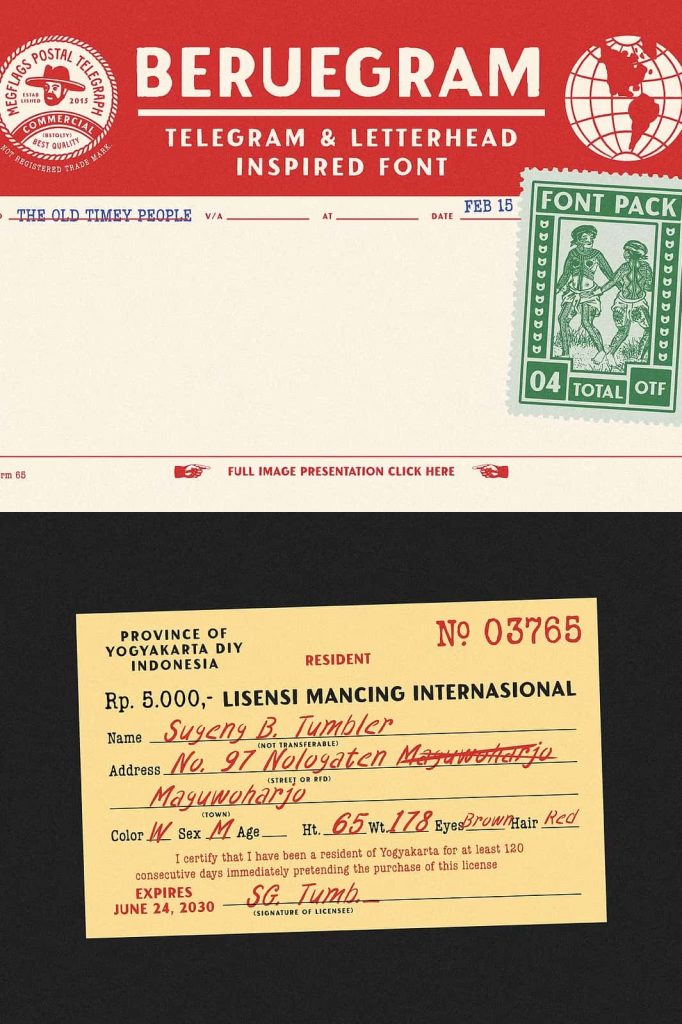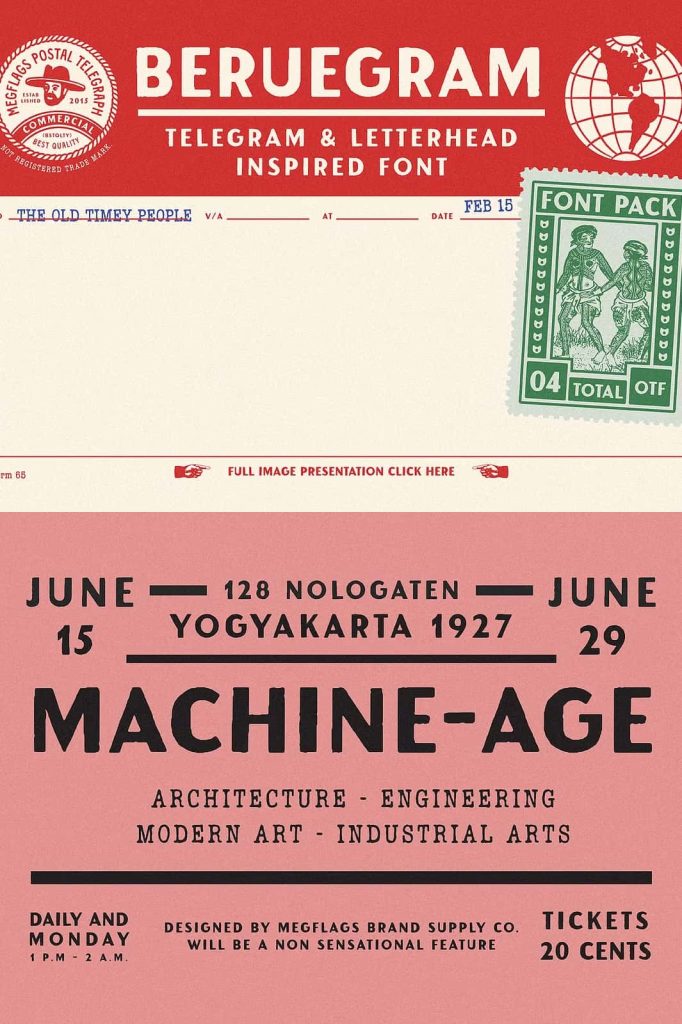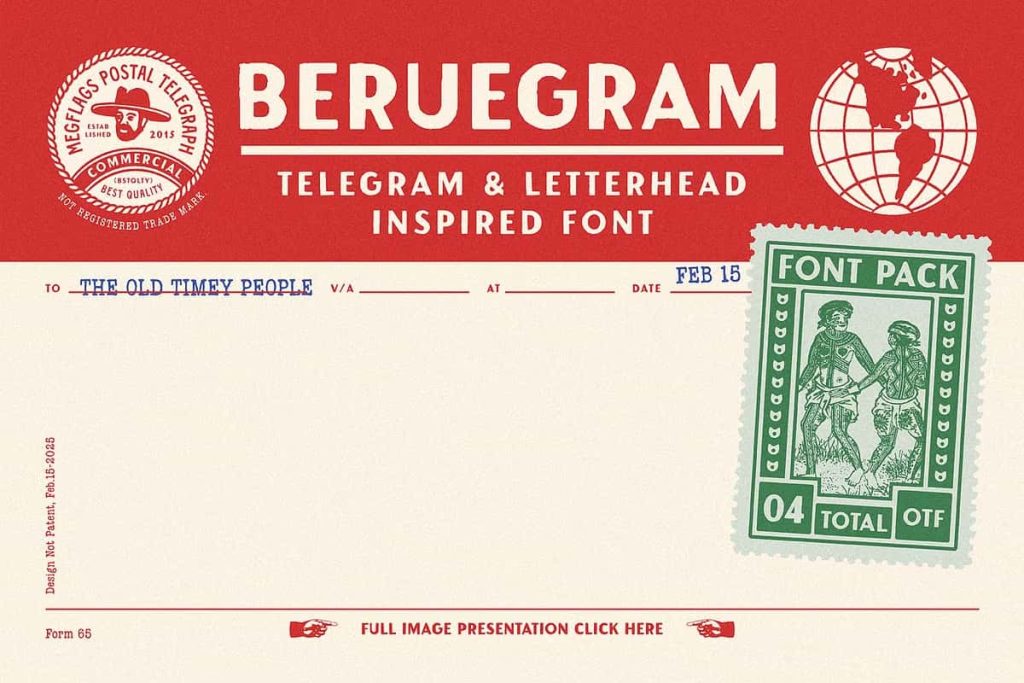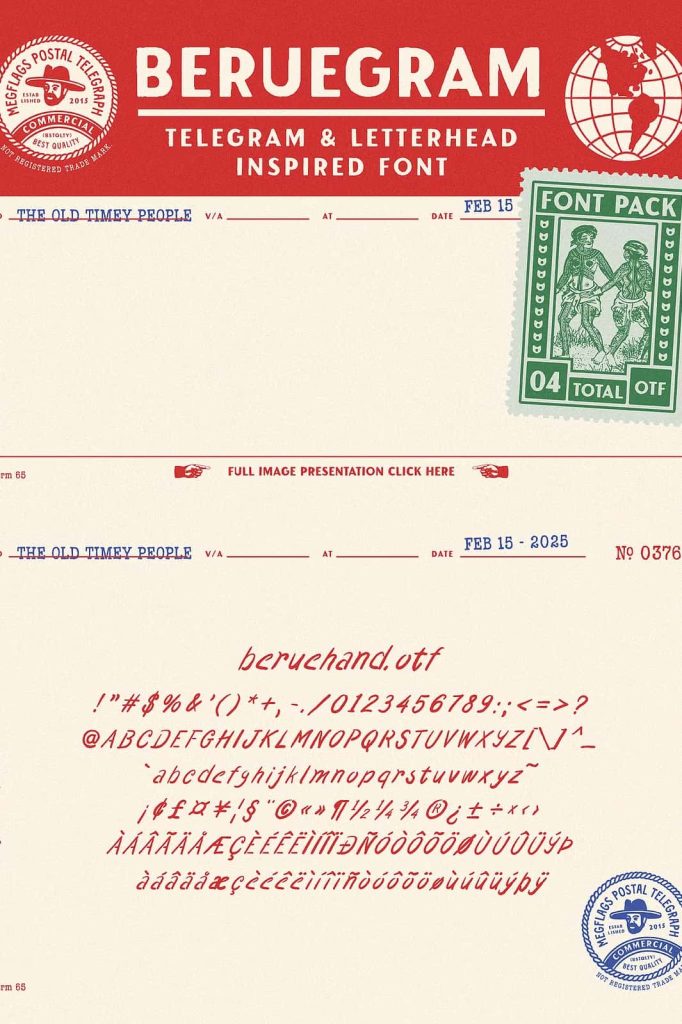
Beruegram Font Pack
Beruegram Font Pack is a vintage-inspired typeface collection that captures the timeless elegance of classic telegrams, historic letterheads, and traditional printed correspondence. Drawing inspiration from the golden era of communication, Beruegram combines nostalgic charm with modern design versatility, allowing creative professionals to produce typography that feels authentic, refined, and full of character.
From the distinctive appearance of old postal documents to the sophisticated styling of official stationery, every element of Beruegram reflects the craftsmanship of traditional printing. This carefully designed font pack delivers a nostalgic atmosphere while maintaining the flexibility required for today’s branding, editorial, and digital design projects. Whether you are creating vintage-inspired branding or designing elegant promotional materials, Beruegram provides the perfect balance between historical authenticity and contemporary usability.
Inspired by Classic Telegrams and Historic Letterheads
Before digital communication transformed the way people shared information, telegrams and formal letters carried messages with elegance, importance, and unmistakable visual identity. Beruegram pays tribute to that remarkable period by recreating the refined typography found on vintage telegram forms, official documents, postal correspondence, and traditional business stationery.
The font pack embraces the structured beauty of historical typography while refining every character for modern creative workflows. The result is a collection that feels timeless without appearing outdated, making it suitable for both vintage-themed and contemporary projects.
Create Authentic Vintage Designs
Beruegram allows designers to bring authentic vintage character into their work with ease. Its carefully crafted letterforms evoke memories of antique documents, classic publishing, and beautifully printed correspondence while maintaining the clean quality expected from professional digital fonts.
Whether you are designing nostalgic advertisements, retro-inspired packaging, museum publications, or classic promotional materials, Beruegram helps establish an atmosphere of heritage, craftsmanship, and sophistication.
Perfect for Branding and Visual Identity
Strong typography forms the foundation of memorable branding, and Beruegram offers businesses a distinctive visual voice inspired by timeless elegance. The font pack works beautifully across logos, stationery, labels, packaging, and promotional graphics, allowing brands to communicate authenticity, trust, and premium quality.
Its vintage personality makes it especially suitable for businesses that value tradition, handcrafted products, artisanal craftsmanship, heritage storytelling, and classic aesthetics.
Recommended Branding Applications
- Vintage logo design
- Coffee shop branding
- Restaurant identities
- Artisan product packaging
- Bakery branding
- Craft beverage labels
- Luxury stationery
- Boutique business identities
- Handmade product branding
Excellent for Editorial and Print Design
Editorial projects benefit greatly from typography with personality, and Beruegram delivers a distinctive appearance that enhances magazines, newspapers, books, journals, brochures, and historical publications. Its classic styling creates memorable headlines while supporting elegant page compositions that celebrate traditional typography.
Designers can pair Beruegram with clean serif or sans serif body fonts to produce balanced layouts that combine historical charm with modern readability.
Ideal for Posters, Invitations, and Promotional Graphics
Beruegram performs exceptionally well in display applications where typography becomes the focal point of the design. Posters, event announcements, invitations, certificates, greeting cards, menus, and promotional graphics all benefit from its nostalgic appearance and sophisticated construction.
The font immediately communicates authenticity and heritage, helping designers establish strong emotional connections through typography alone.
Designed for Creative Versatility
Although inspired by historical communication, Beruegram adapts effortlessly to a wide variety of creative disciplines. Its timeless aesthetic allows designers to build projects ranging from elegant luxury branding to playful retro advertising while maintaining consistency and visual harmony.
The font pack offers exceptional flexibility for professionals working across print, digital, and multimedia platforms, making it a valuable addition to any typography library.
Perfect For
- Vintage branding
- Logo design
- Editorial headlines
- Book covers
- Magazine titles
- Poster design
- Invitation cards
- Restaurant menus
- Product packaging
- Product labels
- Website hero banners
- Merchandise design
- Historical exhibitions
- Creative portfolios
Beruegram Font Pack is a beautifully designed vintage typeface collection inspired by classic telegrams, elegant letterheads, and traditional printed correspondence. Combining nostalgic charm with contemporary functionality, it provides exceptional versatility for branding, editorial design, posters, invitations, packaging, logos, and promotional materials. Its timeless aesthetic, refined craftsmanship, and professional performance make Beruegram an outstanding choice for designers seeking typography that captures the elegance of the past while enhancing the creativity of modern design.